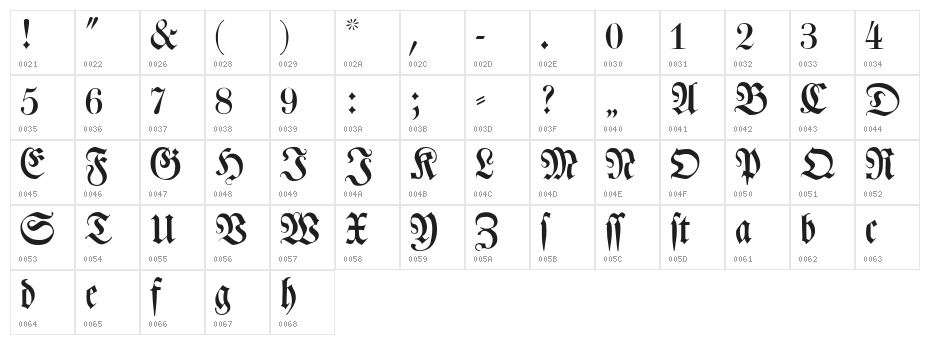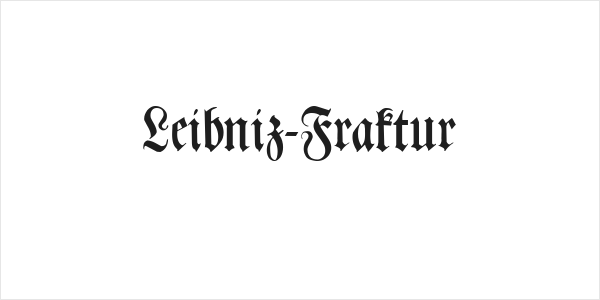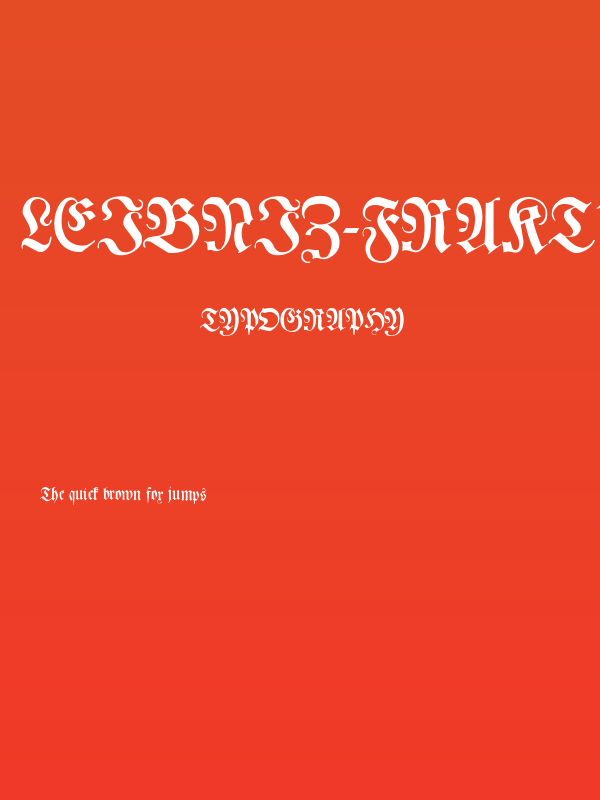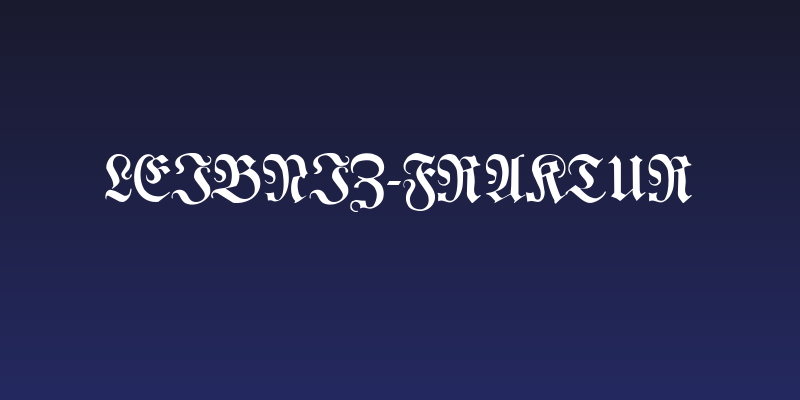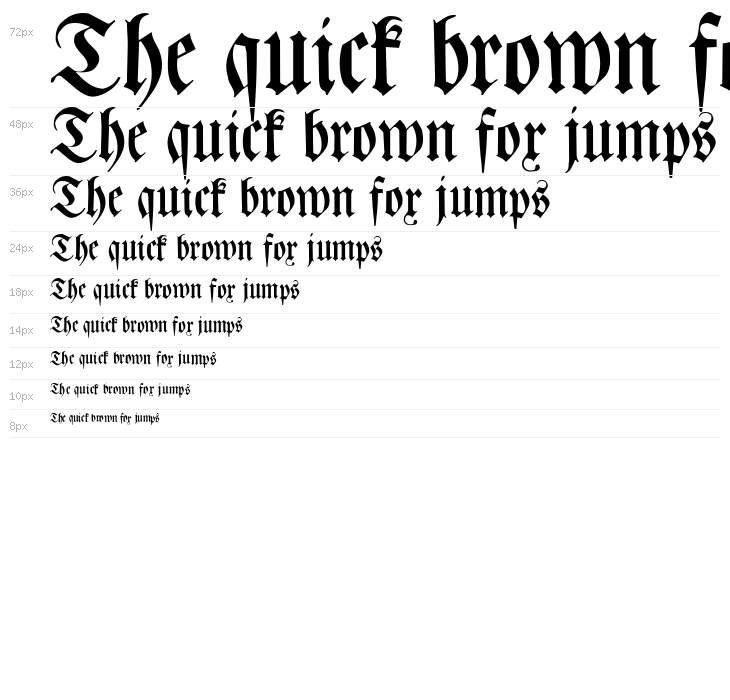
Leibniz-Fraktur Font
Leibniz-Fraktur Description
This font exhibits a traditional blackletter style, characterized by its intricate and ornate letterforms. The uppercase letters are highly decorative, with elaborate curves and sharp angles that give them a distinct Gothic appearance. The lowercase letters maintain a similar aesthetic, with a strong vertical emphasis and pointed serifs. The numerals are bold and consistent with the overall style, featuring sharp edges and a slightly condensed form. Special characters are equally ornate, complementing the font's historical and classical feel. This font is reminiscent of medieval script, often associated with historical documents and traditional European typography.
| Proposed Projects | Ideal for historical documents, certificates, book covers, and branding that requires a traditional or medieval touch. |